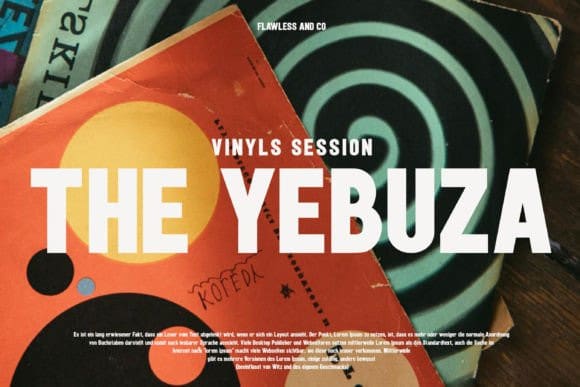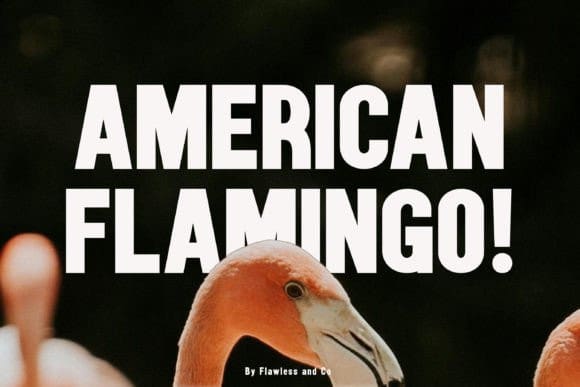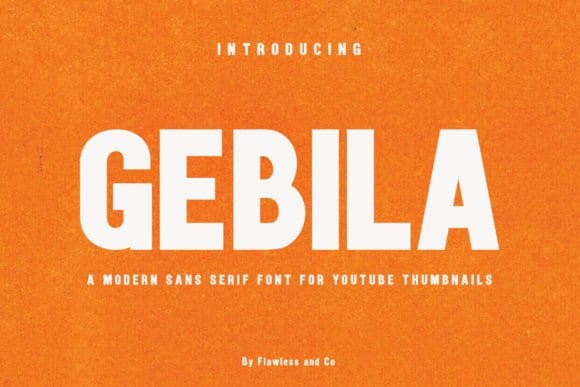
Gebila Font
Gebila Font, a bold and captivating sans-serif font designed to make your YouTube thumbnails stand out from the crowd. With its clean lines and geometric structure, Gebila exudes a sense of modernism and professionalism, perfectly complementing a wide range of YouTube content. This font is suitable for any graphic designs such as branding materials, Thumbnails YouTube, video content, print, business cards, logos, posters, t-shirts, photography, quotes .etc